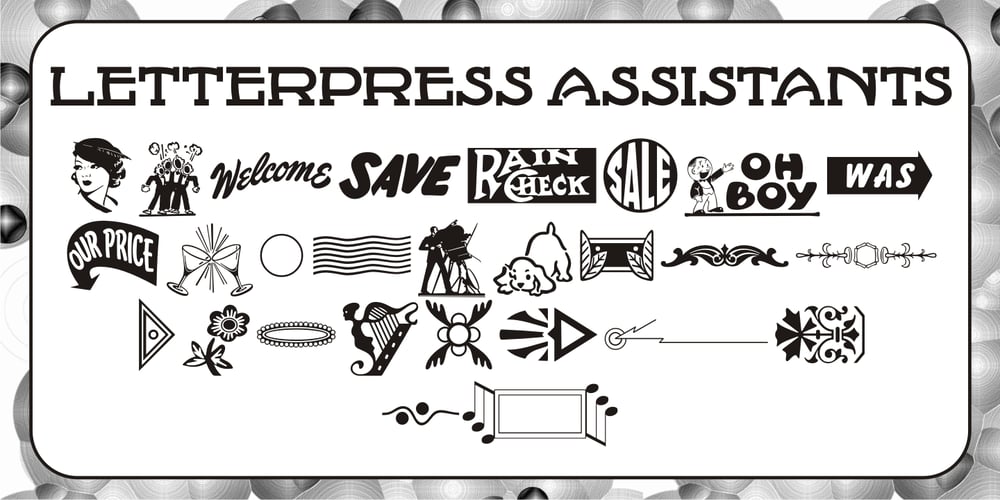
Letterpress Assistants JNL Font Family was designed by Jeff Levine and published by Jeff Levine. Letterpress Assistants JNL contains 1 styles and family package options. Letterpress Assistants JNL once again combines a choice of cartoons, embellishments, ornaments and sales helpers (all redrawn from vintage source material) into one handy digital font.